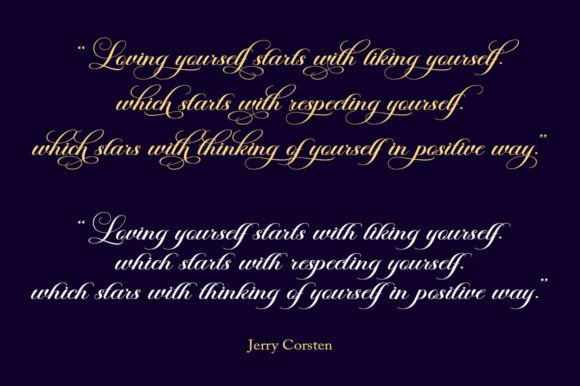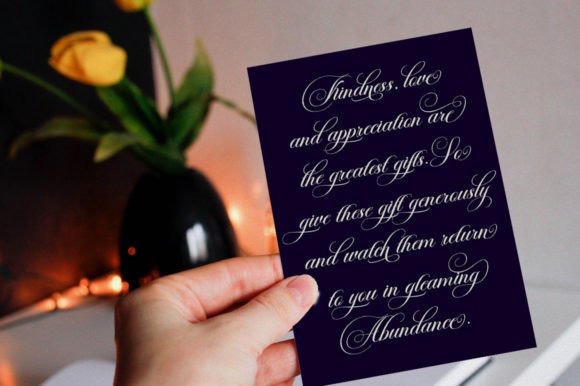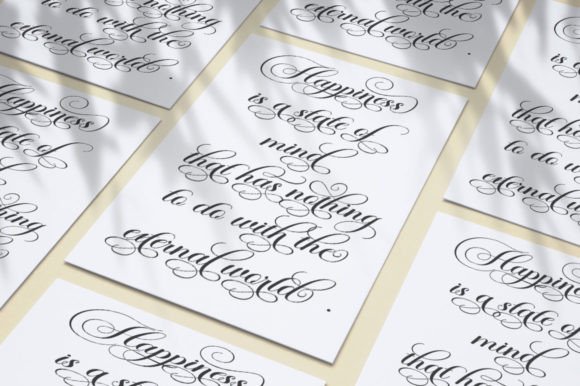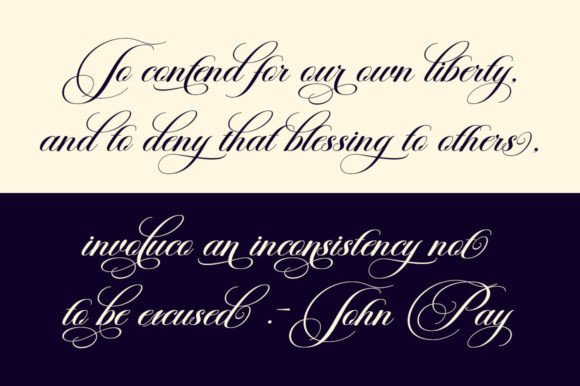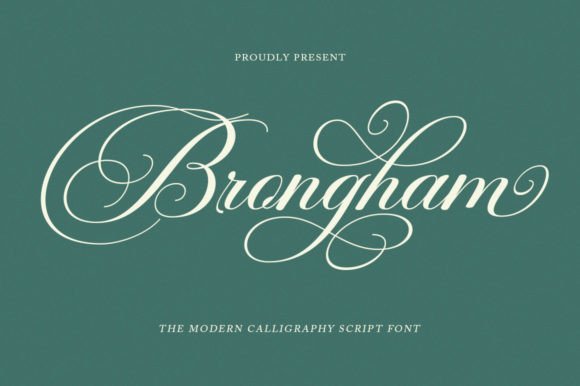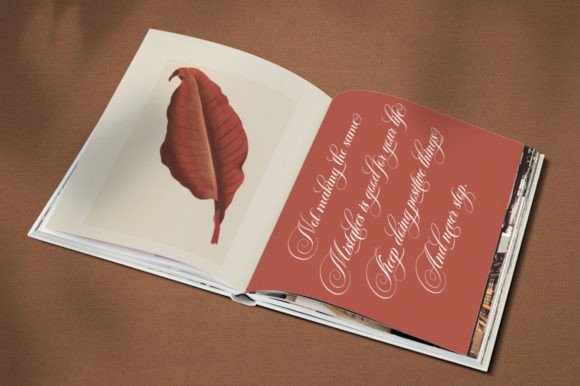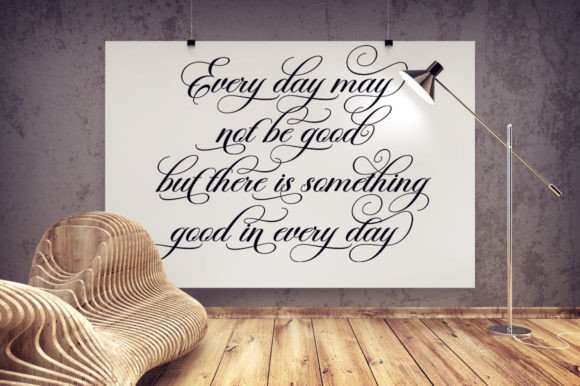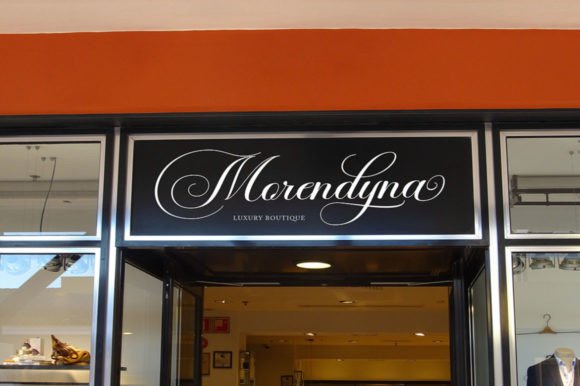
Brongham Font
Brongham Script is a calligraphy script font that comes with very beautiful changing characters, a kind of classic decorative copper script with a modern touch, designed with high detail to bring stylish elegance. Brongham Script is attractive as a typeface that is smooth, clean, feminine, sensual, glamorous, simple, and very easy to read because there are many fancy letter connections. The classic style is perfect to be applied in various formal forms such as invitations, labels, restaurant menus, logos, fashion, make-up, stationery, novels, magazines, books, greeting/wedding cards, packaging, labels, or any type of advertising purpose.